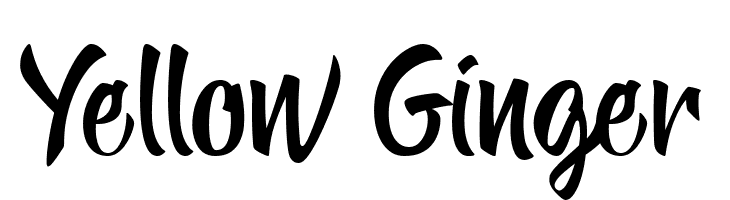
A bold, expressive handwritten font with a lively and energetic style.
A bold, playful handwritten font with expressive strokes.
A bold, dynamic handwritten font with expressive strokes and a lively appearance.
A bold, handwritten-style font with dynamic, slanted characters.